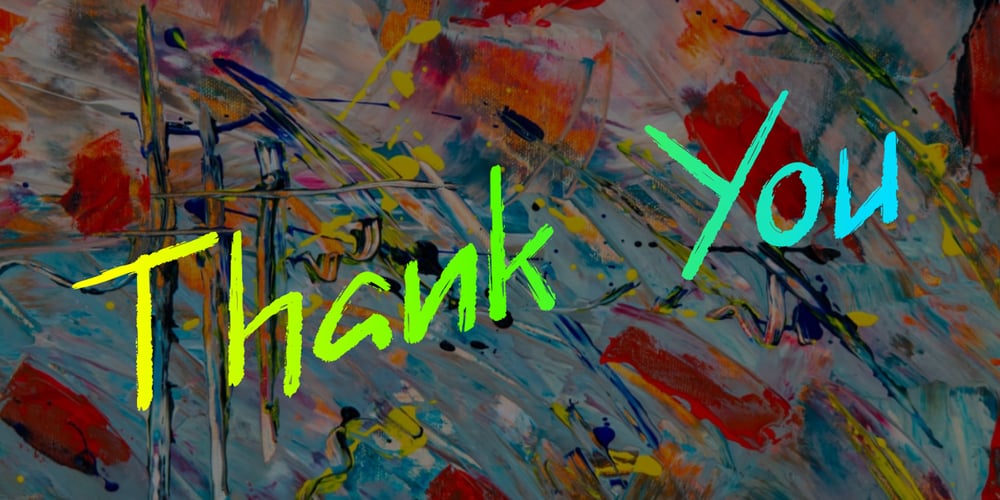
Rinjani
Rinjani font
Rinjani Font Family was designed by Rohmat Sidiq Mustaqim and published by Dieza Design. Rinjani contains 1 styles and family package options. The use of thick brushes and expressive strokes makes Rinjani raw and thick. Suitable for titles and short paragraphs.